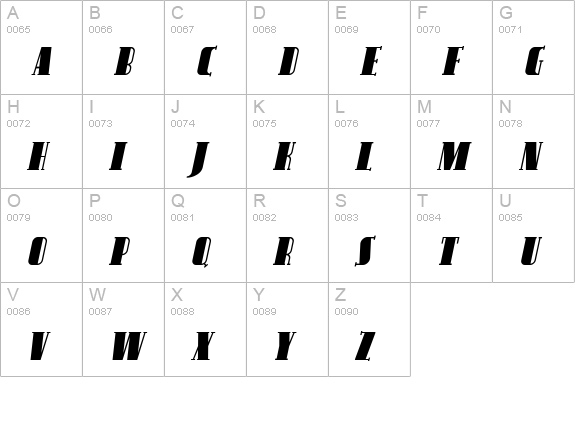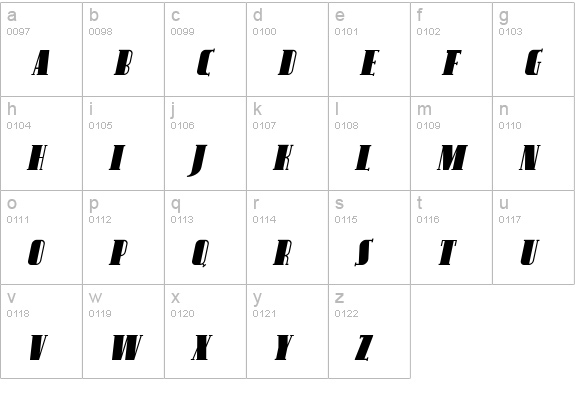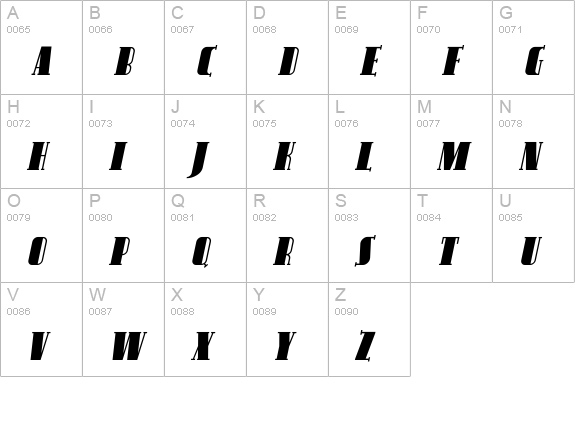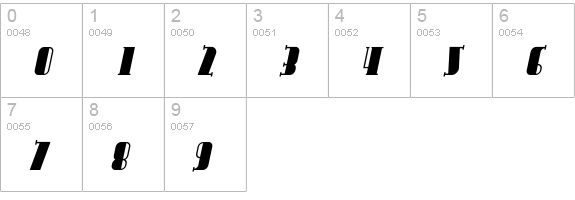
Avondale SC Italic is a distinctive, italic variant in the Avondale typeface family \xE2\x80\x94 well suited to design and typography projects.
Avondale SC Italic is a modern and elegant font that exudes sophistication and style. Its slanted design adds a touch of flair to any project, making it perfect for fashion magazines, high-end branding, and luxury packaging. The delicate curves and graceful lines of Avondale SC Italic create a sense of timeless beauty and refinement. What sets Avondale SC Italic apart is that it is available for free download at FontsMarket.com. This means that designers and creatives can easily access this exquisite font without any cost, allowing them to bring their creative visions to life without any restrictions. Whether you're working on a personal project or a professional design, Avondale SC Italic is a versatile and stunning choice that will elevate your work to new heights. Download Avondale SC Italic for free today at FontsMarket.com and add a touch of sophistication to your designs with this beautiful and stylish font.